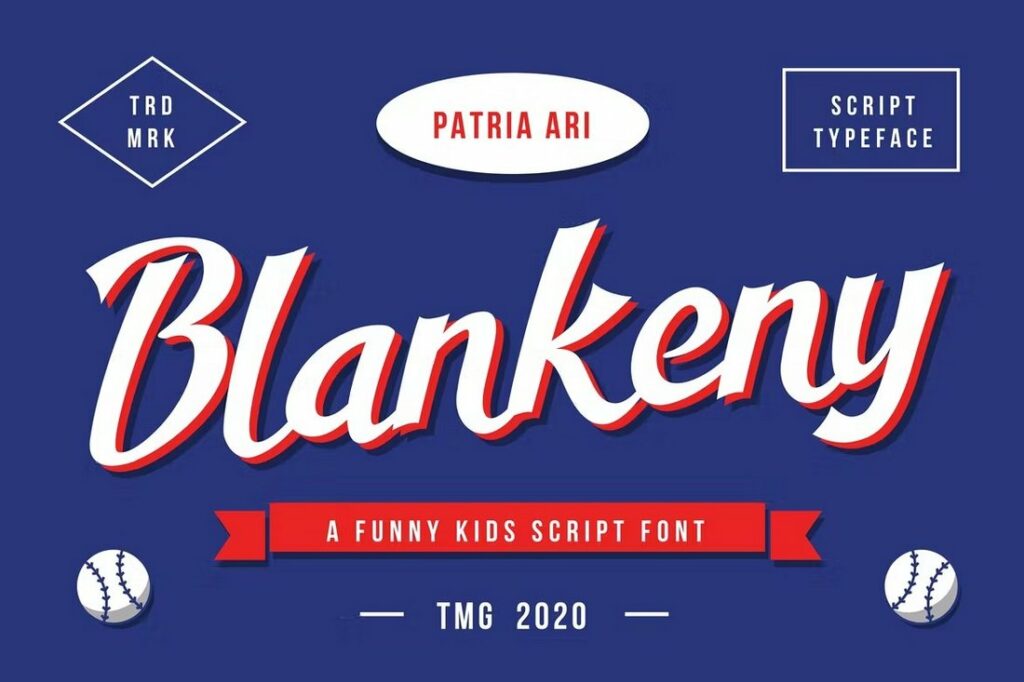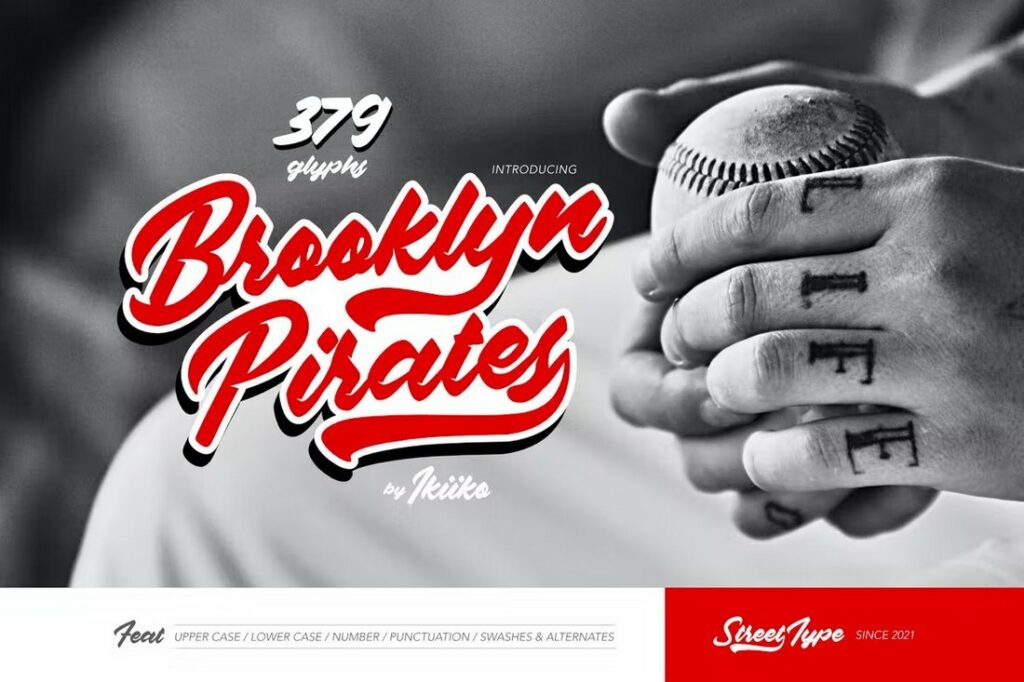
What Is The Font Used On Baseball Jerseys . For example, marsmello, broffont, or boston baseball script. What are baseball fonts usually used for? To help you out, below are some of our recommendations for the best. Alternatively, you can add bold sans serifs made precisely for baseball team branding and jerseys: Write your team name in your favorite font, or combine it with some of our awesome artwork. If there’s one job a sports font has, it’s to make a strong impression. The best baseball fonts to feature on jerseys are sturdy script types with swash capitals, smooth connections, and a vintage look. This chunky font is ideal for baseball jerseys, featuring an interesting side serif that adds character. Some of the most famous sports logos are defined by.
This chunky font is ideal for baseball jerseys, featuring an interesting side serif that adds character. If there’s one job a sports font has, it’s to make a strong impression. To help you out, below are some of our recommendations for the best. What are baseball fonts usually used for? Write your team name in your favorite font, or combine it with some of our awesome artwork. Some of the most famous sports logos are defined by. Alternatively, you can add bold sans serifs made precisely for baseball team branding and jerseys: The best baseball fonts to feature on jerseys are sturdy script types with swash capitals, smooth connections, and a vintage look. For example, marsmello, broffont, or boston baseball script.
What Is The Font Used On Baseball Jerseys The best baseball fonts to feature on jerseys are sturdy script types with swash capitals, smooth connections, and a vintage look. If there’s one job a sports font has, it’s to make a strong impression. Write your team name in your favorite font, or combine it with some of our awesome artwork. The best baseball fonts to feature on jerseys are sturdy script types with swash capitals, smooth connections, and a vintage look. What are baseball fonts usually used for? For example, marsmello, broffont, or boston baseball script. This chunky font is ideal for baseball jerseys, featuring an interesting side serif that adds character. Some of the most famous sports logos are defined by. To help you out, below are some of our recommendations for the best. Alternatively, you can add bold sans serifs made precisely for baseball team branding and jerseys:
baseball jersey font with swoosh What Is The Font Used On Baseball Jerseys Some of the most famous sports logos are defined by. To help you out, below are some of our recommendations for the best. The best baseball fonts to feature on jerseys are sturdy script types with swash capitals, smooth connections, and a vintage look. What are baseball fonts usually used for? For example, marsmello, broffont, or boston baseball script. This. What Is The Font Used On Baseball Jerseys.
Baseball Jersey Font What Is The Font Used On Baseball Jerseys To help you out, below are some of our recommendations for the best. If there’s one job a sports font has, it’s to make a strong impression. The best baseball fonts to feature on jerseys are sturdy script types with swash capitals, smooth connections, and a vintage look. Write your team name in your favorite font, or combine it with. What Is The Font Used On Baseball Jerseys.
10 Best Baseball Fonts for Design & Branding in 2022 What Is The Font Used On Baseball Jerseys Alternatively, you can add bold sans serifs made precisely for baseball team branding and jerseys: The best baseball fonts to feature on jerseys are sturdy script types with swash capitals, smooth connections, and a vintage look. What are baseball fonts usually used for? To help you out, below are some of our recommendations for the best. If there’s one job. What Is The Font Used On Baseball Jerseys.
Varsity Alphabet Font SVG Sports Jersey Numbers SVG Baseball Etsy What Is The Font Used On Baseball Jerseys To help you out, below are some of our recommendations for the best. The best baseball fonts to feature on jerseys are sturdy script types with swash capitals, smooth connections, and a vintage look. This chunky font is ideal for baseball jerseys, featuring an interesting side serif that adds character. Alternatively, you can add bold sans serifs made precisely for. What Is The Font Used On Baseball Jerseys.
Baseball Jersey Font What Is The Font Used On Baseball Jerseys What are baseball fonts usually used for? Alternatively, you can add bold sans serifs made precisely for baseball team branding and jerseys: If there’s one job a sports font has, it’s to make a strong impression. Some of the most famous sports logos are defined by. For example, marsmello, broffont, or boston baseball script. This chunky font is ideal for. What Is The Font Used On Baseball Jerseys.
20+ Baseball Fonts (Script & Cursive Jersey + Logo Fonts) 2024 Design What Is The Font Used On Baseball Jerseys The best baseball fonts to feature on jerseys are sturdy script types with swash capitals, smooth connections, and a vintage look. If there’s one job a sports font has, it’s to make a strong impression. This chunky font is ideal for baseball jerseys, featuring an interesting side serif that adds character. Some of the most famous sports logos are defined. What Is The Font Used On Baseball Jerseys.
Baseball Jersey Font Name Zoom Fonts What Is The Font Used On Baseball Jerseys Some of the most famous sports logos are defined by. What are baseball fonts usually used for? For example, marsmello, broffont, or boston baseball script. If there’s one job a sports font has, it’s to make a strong impression. This chunky font is ideal for baseball jerseys, featuring an interesting side serif that adds character. To help you out, below. What Is The Font Used On Baseball Jerseys.
31+ Best Jersey Fonts for Sporty & Athletic Designs (2024) What Is The Font Used On Baseball Jerseys Write your team name in your favorite font, or combine it with some of our awesome artwork. If there’s one job a sports font has, it’s to make a strong impression. To help you out, below are some of our recommendations for the best. The best baseball fonts to feature on jerseys are sturdy script types with swash capitals, smooth. What Is The Font Used On Baseball Jerseys.